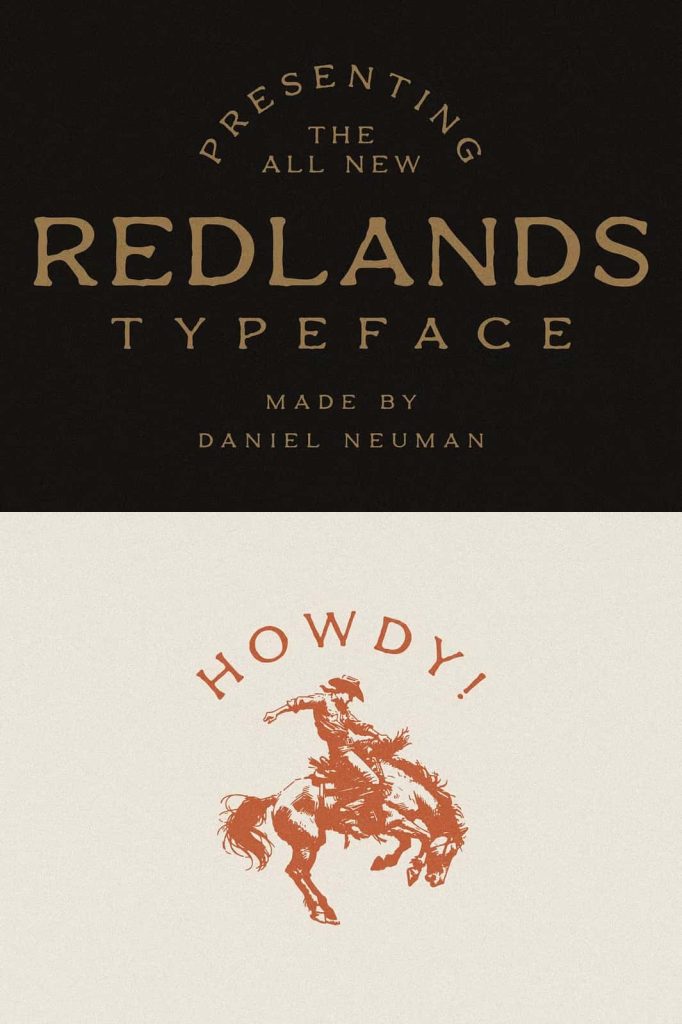
Redlands: A Western-Inspired Font Duo Built for Adventure
Redlands is a powerful font duo that captures the spirit, heritage, and visual storytelling of the American West. Designed to balance refinement and ruggedness, this typeface set includes two complementary styles: Redlands Regular and Redlands Stamp. Together, they form a cohesive typographic system that gives designers the freedom to tell bold stories rooted in adventure, tradition, and timeless Western character.
This font duo does more than provide stylistic variety. Redlands creates atmosphere and emotion through typography, allowing each project to communicate confidence, authenticity, and exploration. Whether used for branding, print, or digital design, Redlands delivers a strong and memorable visual voice.
Two Distinct Styles with One Cohesive Identity
The strength of Redlands lies in its dual-style construction. Each version serves a specific purpose while maintaining consistent proportions and character. This allows designers to mix and match styles within a single project without sacrificing harmony or clarity.
Redlands Regular acts as the foundation of the duo. Its smooth lines and balanced letterforms convey confidence and elegance while still feeling grounded and approachable. This style evokes open landscapes, long roads, and stories of exploration, making it ideal for designs that value clarity and narrative depth.
Redlands Regular: Smooth Lines with Western Character
Redlands Regular features clean curves and well-defined shapes that feel intentional and refined. The smooth construction allows text to flow naturally, making it suitable for headlines, logos, and supporting text. Its Western influence is subtle yet unmistakable, providing character without overpowering the design.
This style works exceptionally well for branding projects that aim to communicate adventure, reliability, and heritage. It brings a sense of openness and confidence that resonates across both traditional and modern design contexts.
Redlands Stamp: Rugged Texture with Vintage Strength
Redlands Stamp introduces a bold, textured alternative that thickens the visual narrative. Inspired by vintage stamps and worn Western signage, this style adds grit, depth, and authenticity to any design. The rough edges and distressed texture create a sense of history, as if each letter has been marked by time and travel.
This stamp-inspired version is perfect for creating emphasis and contrast. It draws attention instantly and works particularly well in bold headlines, badges, labels, and promotional graphics. Redlands Stamp adds weight and authority to messages that need to feel strong and memorable.
A Vintage Look That Enhances Storytelling
The textured details of Redlands Stamp are carefully balanced to maintain readability while delivering visual impact. The roughness never feels accidental; instead, it reinforces the handcrafted and time-worn aesthetic that defines classic Western typography.
By pairing Redlands Stamp with the smoother Regular style, designers can create layered typographic systems that feel dynamic and expressive. This contrast enhances storytelling and helps guide the viewer’s attention through the layout.
Perfect for Branding, Posters, and Western-Themed Design
Redlands excels in branding projects that seek authenticity and character. Its Western-inspired design makes it an excellent choice for outdoor brands, apparel companies, breweries, cafés, event promotions, and lifestyle businesses. The font duo supports cohesive branding by offering both refined and rugged options within the same visual language.
In posters and promotional materials, Redlands commands attention. The Regular style provides clarity and structure, while the Stamp style adds emphasis and texture. This versatility allows designers to build strong visual hierarchy and create designs that feel intentional and impactful.
Adaptable for Print and Digital Media
Redlands performs reliably across both print and digital platforms. In print, its letterforms reproduce clearly and maintain their character on posters, packaging, labels, and merchandise. In digital environments, the font remains legible and visually engaging, making it suitable for websites, social media graphics, and online advertising.
This adaptability ensures that Redlands can serve as a long-term typographic solution for brands and projects that require consistency across multiple mediums.
A Font Duo That Invites Creative Exploration
Redlands encourages designers to explore, experiment, and build narratives through typography. Its Western roots inspire themes of travel, freedom, and resilience, while its modern construction ensures usability in contemporary design workflows.
The combination of smooth elegance and rugged texture allows Redlands to adapt to a wide range of creative directions. Designers can lean into refinement, embrace grit, or blend both styles to create something entirely unique.
Ride Into Timeless Design Possibilities
Redlands is more than a font duo; it is a visual journey shaped by the heart of the West. With Redlands Regular and Redlands Stamp working together, designers gain a flexible and expressive typographic system that stands the test of time.
From logos and branding to posters, packaging, and apparel, Redlands delivers confidence, character, and storytelling power. It invites you to saddle up your imagination and ride into a landscape of endless creative possibilities built on authentic Western design.